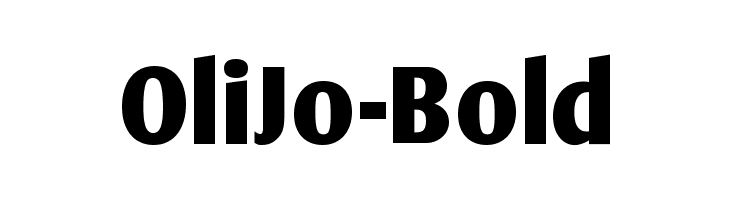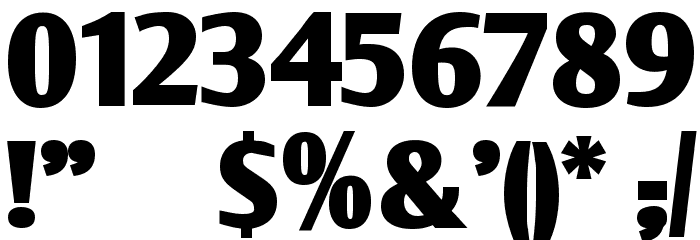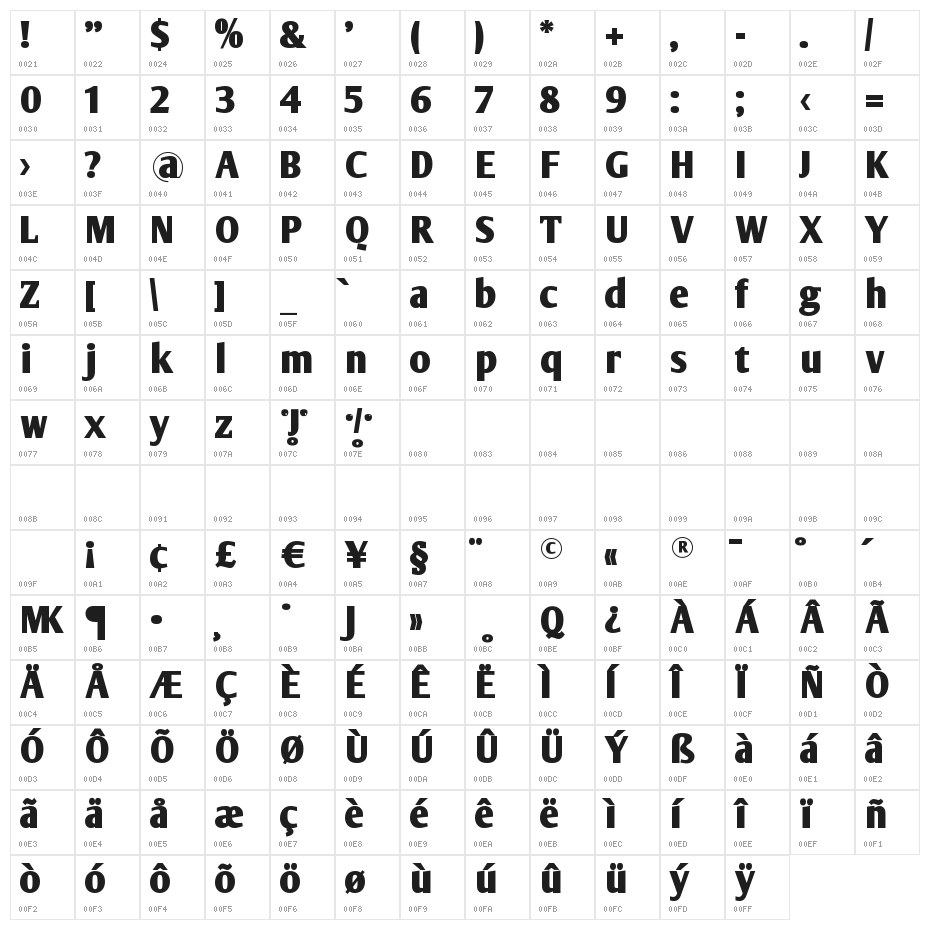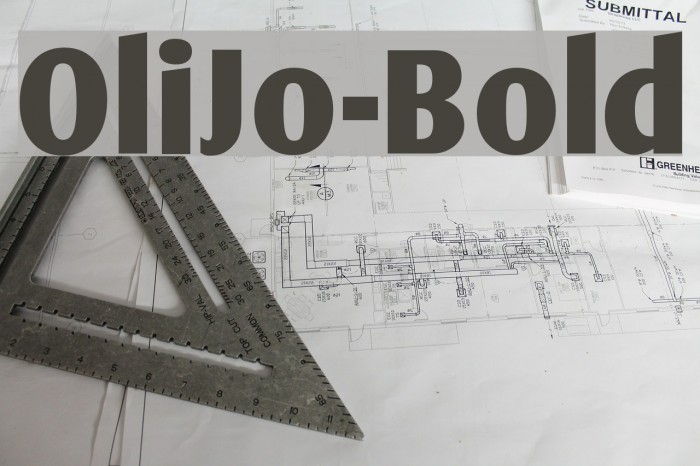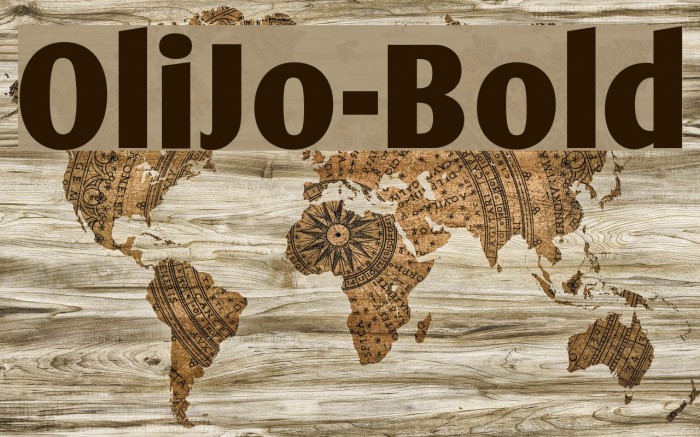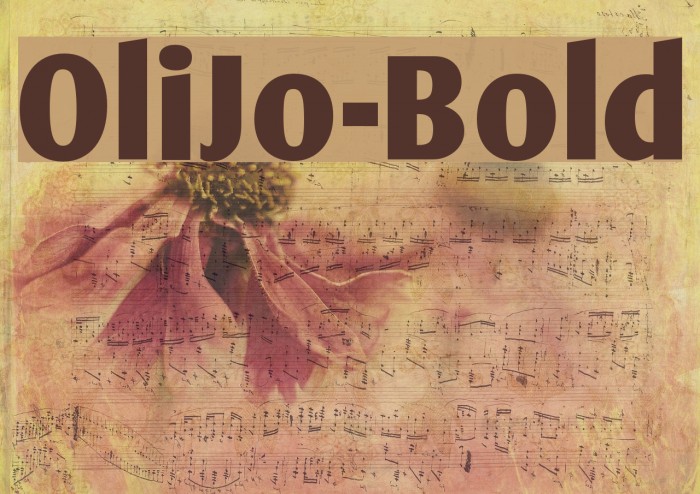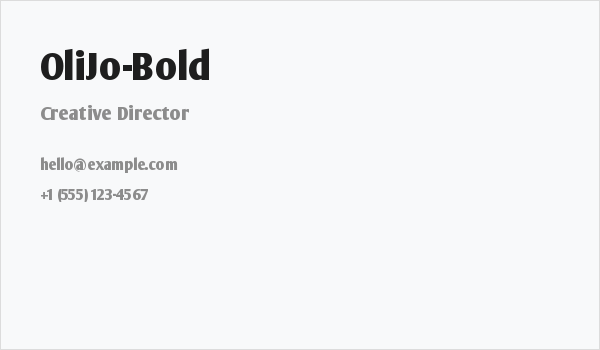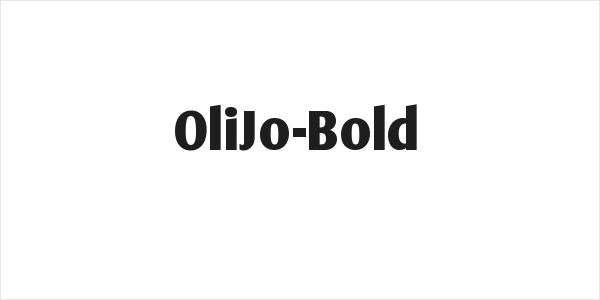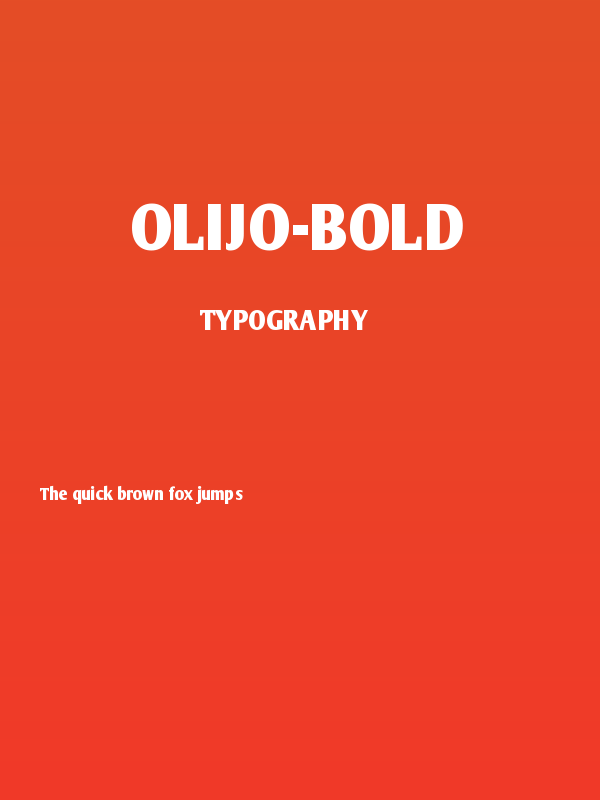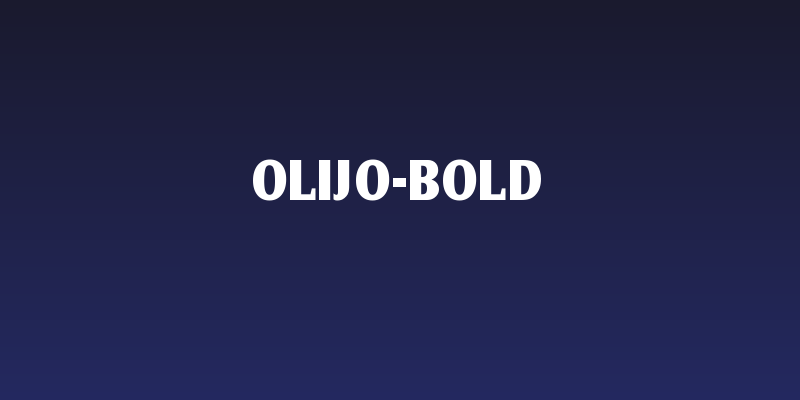
OliJo-Bold Font
OliJo-Bold Description
This typeface features bold, strong lines with a modern and assertive appearance. The characters are well-defined with a consistent stroke width, providing a sense of stability and confidence. The uppercase letters are particularly striking, with a commanding presence that makes them ideal for headlines and titles. The lowercase letters maintain the boldness of the uppercase, ensuring readability and impact. Numerals are clear and robust, matching the overall style of the alphabet. The special characters are designed to complement the letters and numbers, maintaining the bold aesthetic throughout. This font is versatile and can be used in various design projects that require a strong visual impact.
| Proposed Projects | Ideal for branding, advertising, headlines, posters, and any project requiring a bold statement. |